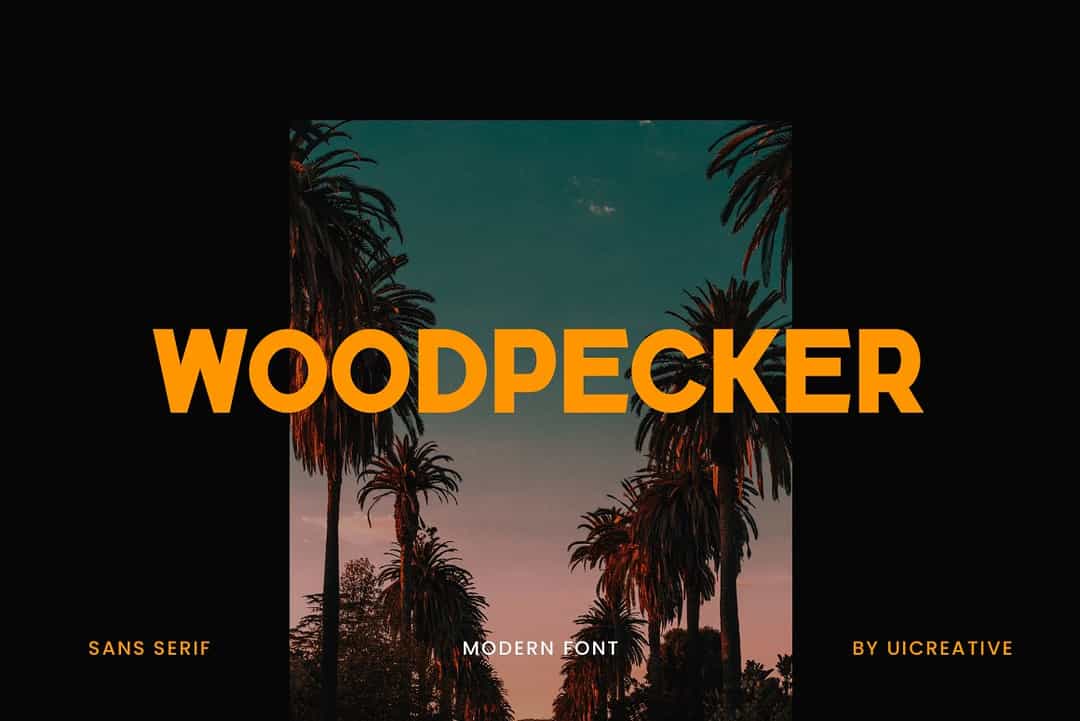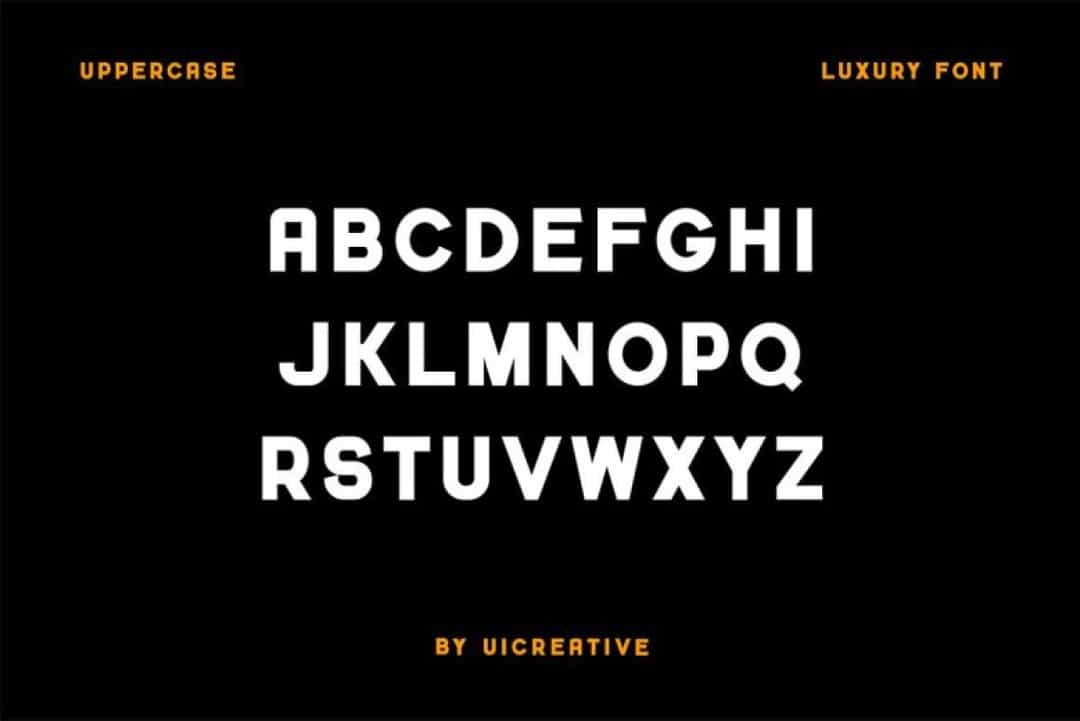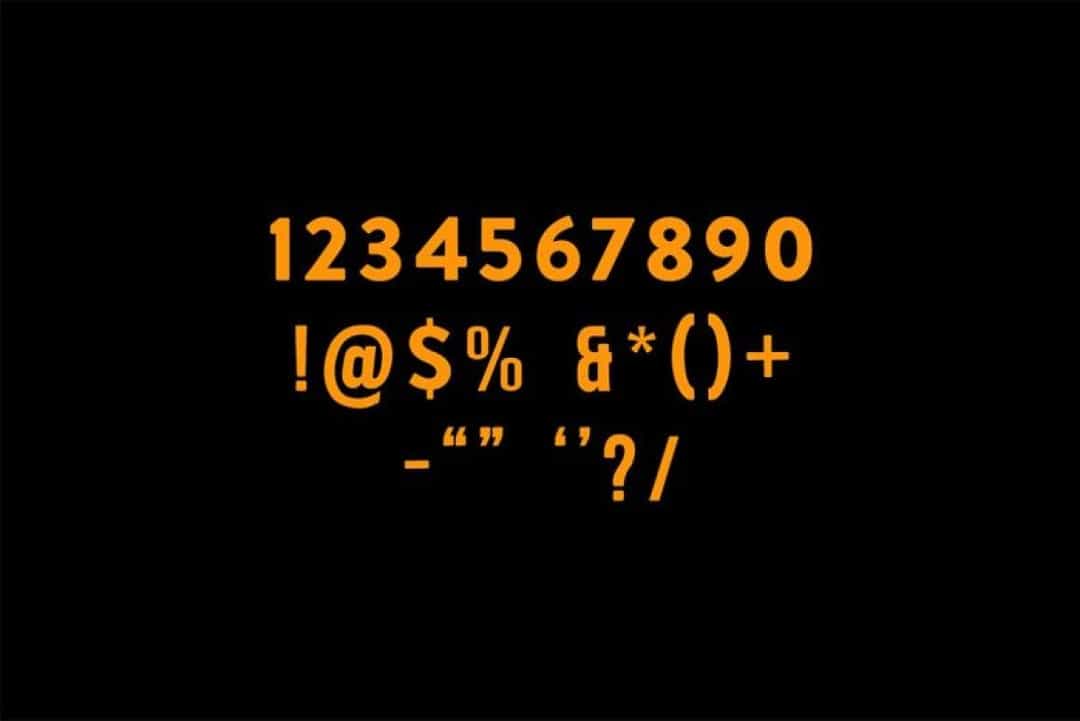
Woodpeckeris an elegant and contemporary sans-serif style font with feminine characteristics. It can be used in numerous designs including logos, stationery, signature wedding invitations and typography quotes for book or magazine covers as well as headers on websites or branding designs such as clothing packaging. Fashion-related branding or editorial designs often make use of this font due to its versatile nature – perfect for branding purposes as well.